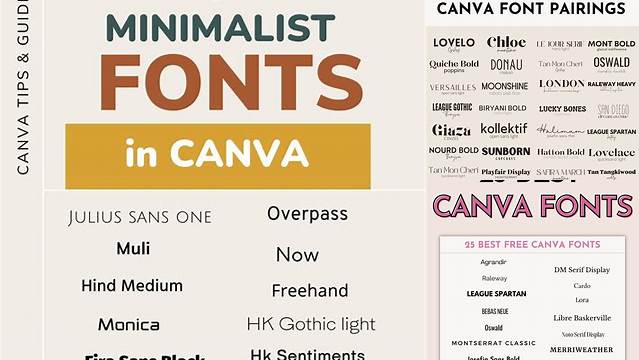
Best Canva Fonts For Logos: A Designer's Guide
Canva is a fantastic platform for creating logos, especially if you're not a professional designer. One of the most critical aspects of logo design is choosing the right font. The font you select can significantly impact how your brand is perceived. Let's dive into some good fonts in Canva that can help you create a memorable and effective logo. We'll cover various styles, from classic and elegant to modern and playful, ensuring you find something that fits your brand's personality. Remember, the key is to select a font that is not only visually appealing but also legible and versatile enough to be used across different platforms and sizes.
Understanding the Importance of Font Choice in Logo Design
Guys, let's get real for a second – the font you pick for your logo is super important. It's not just about looking pretty; it's about conveying your brand's personality and values. Think of your font as your brand's voice – is it sophisticated and professional, or fun and approachable? The right font can make your logo instantly recognizable and memorable, while the wrong one can make your brand look unprofessional or even confusing. When you're just starting out, it can feel like there are a million things to think about, but trust me, nailing your font choice early on is a game-changer. It sets the tone for everything else, from your website to your marketing materials. So, spend some time exploring different options and finding a font that truly represents what your brand is all about. Don't just pick something that looks cool; pick something that means something.
Consider the psychology of fonts. Serif fonts (like Times New Roman or Garamond) often convey a sense of tradition, authority, and reliability. They have those little “feet” or strokes at the ends of the letters, giving them a classic and formal look. On the other hand, sans-serif fonts (like Helvetica or Arial) are more modern, clean, and minimalist. They tend to project a sense of innovation and simplicity. Script fonts (like Brush Script or Pacifico) are elegant and can add a personal touch, often used for brands aiming for a more handcrafted or artistic feel. Display fonts are the wild cards – they're designed to grab attention and are perfect for headings and logos, but they should be used sparingly. Think about how different fonts make you feel. Does a bold, blocky font make you think of strength and stability? Does a delicate, flowing script evoke elegance and luxury? These associations are crucial when choosing a font for your logo. You want to pick a font that aligns with the emotions and values you want your brand to communicate.
Font legibility is another critical factor. Your logo needs to be readable whether it's on a business card, a website, or a billboard. Avoid fonts that are too thin, too ornate, or too closely spaced. Test your logo in different sizes to make sure the font remains clear and easy to read. Also, consider how the font will look in different contexts. Will it work well on both light and dark backgrounds? Will it be easily readable in both print and digital formats? Versatility is key, especially if you plan to use your logo across a wide range of platforms. Think about your target audience as well. What kind of fonts will resonate with them? A playful, whimsical font might be perfect for a children's brand, but it might not be the best choice for a financial services company. Consider the age, demographics, and interests of your ideal customer and choose a font that appeals to them. Ultimately, the font you choose should not only look good but also effectively communicate your brand's message and values. It's a small detail that can make a big difference in how your brand is perceived.
Top Font Recommendations in Canva for Logo Design
Alright, let's jump into some top font recommendations in Canva for logo design. Canva has a massive library of fonts, which can be both a blessing and a curse. It's great to have so many options, but it can also be overwhelming to sift through them all. I'm going to break down some of my personal favorites, covering a range of styles and use cases, so you can find the perfect fit for your brand. We'll look at everything from classic serifs to modern sans-serifs and even some fun script fonts to add a touch of personality. Remember, the best font for your logo will depend on your specific brand identity and the message you want to convey, but these are some solid starting points that have worked well for many of my own projects and for other designers I know.
First up, let's talk about serif fonts. If you're going for a classic, trustworthy, and established vibe, serif fonts are your best friend. Canva has some fantastic options in this category. One of my go-to's is Playfair Display. It's elegant and sophisticated, with a slightly modern twist. It works particularly well for brands in the luxury, beauty, or fashion industries. Another great choice is Lora, which is a bit more understated but still has that classic serif feel. Lora is super versatile and looks great in both logos and body text, making it a solid option if you want to use the same font across your branding. For something with a bit more personality, check out Merriweather. It's a sturdy, readable serif font with a slightly condensed form, making it a good choice if you need to fit more text into your logo. Then there's Didot, a high-contrast serif that exudes sophistication and is often used in high-end fashion and editorial design. This one is perfect if you want your logo to make a strong, stylish statement. But remember, when using a high-contrast font like Didot, make sure it remains legible at smaller sizes. Test it out on different devices and applications to ensure it holds up.
Now, let's move on to sans-serif fonts. These are the workhorses of the font world – clean, modern, and incredibly versatile. If you're aiming for a contemporary and minimalist look, you can't go wrong with a sans-serif. One of the most popular sans-serif fonts in Canva is Montserrat. It's a geometric sans-serif that's clean, modern, and highly readable. It's a great all-around choice that works well for a wide range of brands. Another fantastic option is Open Sans, which is known for its neutrality and readability. It's super versatile and looks great in both print and digital applications. If you're looking for something a bit bolder and more impactful, check out Raleway. It's a modern sans-serif with a slightly condensed form, giving it a strong, confident appearance. Lato is another excellent choice – it's a humanist sans-serif that's warm and friendly while still maintaining a professional look. And we can't forget about Poppins, a geometric sans-serif that's clean, modern, and highly legible, making it a great choice for logos that need to be readable at various sizes. These sans-serif fonts offer a contemporary feel that works well for tech companies, startups, and businesses aiming for a clean and modern brand identity.
Finally, let's talk about script and display fonts. These are where you can really let your brand's personality shine. Script fonts add a touch of elegance and personality, while display fonts are designed to grab attention. However, a word of caution: use these fonts sparingly in logos. They're best used for a single word or initial, as they can be harder to read in longer text. If you're looking for a script font, check out Pacifico. It's a casual, flowing script that's perfect for brands that want to convey a friendly and approachable vibe. Another lovely option is Great Vibes, an elegant script that adds a touch of sophistication. For a more modern script, try Playlist Script – it has a handwritten feel that's both stylish and contemporary. Now, when it comes to display fonts, Canva has a ton of options, but you'll want to be selective. A few that I like are Bebas Neue, a tall, condensed sans-serif that's great for making a statement; Oswald, a classic sans-serif that's slightly rounded and very readable; and ChunkFive, a bold slab serif that's perfect for a vintage or retro look. When using script or display fonts, it’s crucial to pair them with a more neutral font for the rest of your branding to ensure readability and balance. Think of script and display fonts as the accent pieces in your font wardrobe – they add flair and personality but shouldn’t be the main event.
Pairing Fonts Effectively in Canva
Okay, so you've picked out a few good fonts in Canva, but how do you make sure they play nice together? Font pairing is an art, guys, and it can make or break your logo design. You want to create a visual harmony that's pleasing to the eye and reinforces your brand's message. Think of it like pairing wine and cheese – some combinations are chef's kiss, while others are… well, let's just say they're not as delightful. In the same way, some fonts naturally complement each other, while others clash and create a visual mess. The key is to find fonts that have enough contrast to be distinct but also enough similarities to feel cohesive. It's a delicate balance, but when you get it right, it can elevate your logo from good to amazing.
One of the most common and effective strategies for font pairing is to combine a serif font with a sans-serif font. This creates a visual contrast that's both interesting and easy to read. For example, you might pair Playfair Display (a serif) with Montserrat (a sans-serif). The elegance of Playfair Display is balanced by the clean simplicity of Montserrat, creating a sophisticated yet modern look. Another classic pairing is Lora (a serif) with Open Sans (a sans-serif). Lora's slightly more traditional feel is grounded by the neutral readability of Open Sans. When pairing a serif and a sans-serif, think about which font you want to use for your main brand name and which one you'll use for a tagline or supporting text. Generally, it's a good idea to use the more distinctive font for your brand name and the more readable font for smaller text. This ensures that your brand name stands out while your supporting text remains easy to read.
Another approach is to pair fonts from the same font family. Many fonts come in a variety of weights and styles (e.g., regular, bold, italic), and using different variations of the same font can create a cohesive and professional look. For example, you could use Montserrat Bold for your brand name and Montserrat Regular for your tagline. This creates a subtle contrast while maintaining a unified feel. Pairing fonts from the same family is a safe bet if you're new to font pairing, as they're designed to work well together. However, be careful not to use too many variations of the same font, as this can look monotonous. Stick to two or three different weights or styles to create a balanced design. You can also pair a script or display font with a more neutral serif or sans-serif. This is a great way to add personality to your logo without sacrificing readability. For example, you might pair Pacifico (a script font) with Montserrat (a sans-serif). The casual, friendly vibe of Pacifico is balanced by the clean modernity of Montserrat. When using a script or display font, it's crucial to use it sparingly – usually for a single word or initial. Pair it with a more neutral font for the rest of your logo to ensure that the overall design remains legible and professional. Remember, the goal is to create a logo that is both visually appealing and easy to read, so balance is key.
Tips for Choosing the Perfect Font for Your Logo
Alright, let's wrap things up with some tips for choosing the perfect font for your logo. We've covered a lot, from the importance of font choice to specific font recommendations and pairing strategies. But before you dive into Canva and start designing, let's just nail down a few key principles to keep in mind. Choosing a font is a crucial part of branding, so it’s worth taking the time to get it right. Think of your logo as the face of your brand – it's often the first thing people see, so you want to make a good impression. The perfect font will not only look great but also effectively communicate your brand's personality and values. It's about finding that sweet spot where aesthetics and message meet, creating a logo that's both visually appealing and meaningful.
First and foremost, consider your brand identity. What are your brand's values? What kind of message do you want to convey? Are you aiming for a professional, trustworthy image, or a more fun, creative vibe? Your font choice should align with your brand's overall personality. If you're a financial services company, you might opt for a classic serif font like Lora or a clean sans-serif like Montserrat. If you're a children's brand, you might choose a more playful font like Pacifico or a bold display font. Think about the emotions you want your brand to evoke and choose a font that aligns with those emotions. A well-chosen font can instantly communicate your brand's values to your target audience. It's about creating a visual language that resonates with your customers and reinforces your brand's message.
Next, think about your target audience. Who are you trying to reach? What kind of fonts will appeal to them? Consider the age, demographics, and interests of your ideal customer. A font that appeals to a young, trendy audience might not be the best choice for a more mature, professional demographic. Do some research to see what kind of fonts are popular in your industry and what fonts your competitors are using. This can give you a sense of what works well and what to avoid. However, don't be afraid to stand out from the crowd. While it's important to be aware of industry trends, you also want your logo to be unique and memorable. Choose a font that reflects your brand's personality and sets you apart from the competition. It's a balancing act – you want to appeal to your target audience while also creating a logo that is distinctive and recognizable.
Finally, don't be afraid to experiment. Canva has a huge library of fonts, so take some time to explore different options and see what works best for your brand. Try out different combinations of fonts and see how they look together. Test your logo in different sizes and applications to make sure the font remains legible and impactful. Get feedback from friends, colleagues, and potential customers. Sometimes, a fresh perspective can help you see your logo in a new light. Remember, choosing a font is a process, and it might take some time to find the perfect fit. Don't rush it, and don't be afraid to iterate. The goal is to create a logo that you're proud of – a logo that effectively represents your brand and resonates with your target audience. So, take your time, have fun, and trust your instincts. You've got this!
Choosing the right font for your logo is a crucial decision that can significantly impact your brand's identity. By understanding the different types of fonts, considering your brand personality, and following these tips, you can select a font that not only looks great but also effectively communicates your brand's message. Good luck creating a logo that stands out!